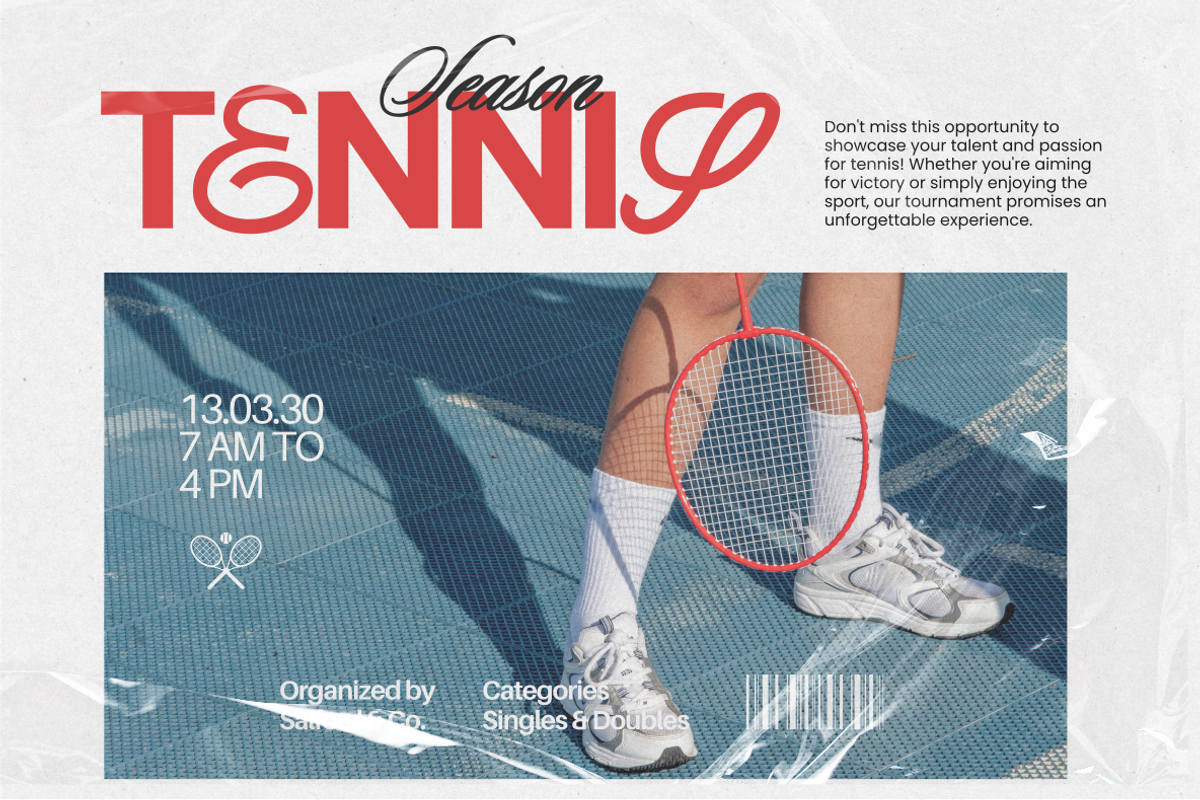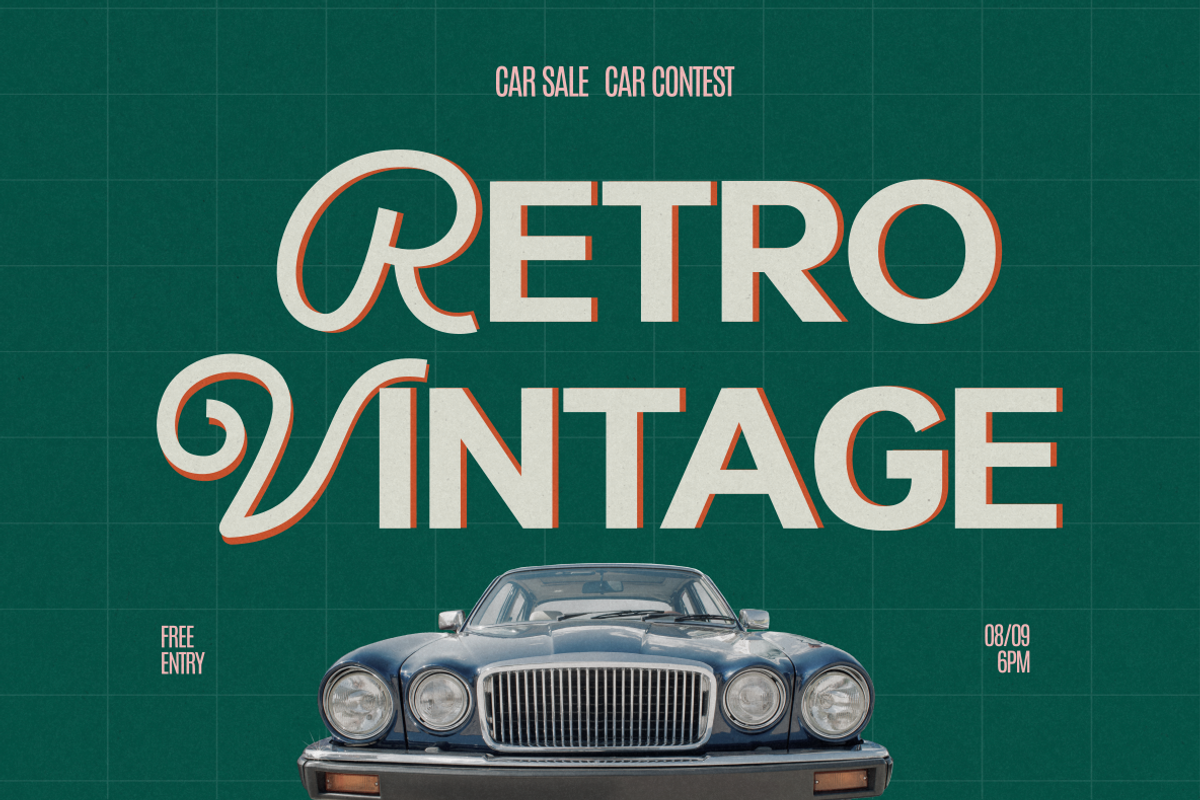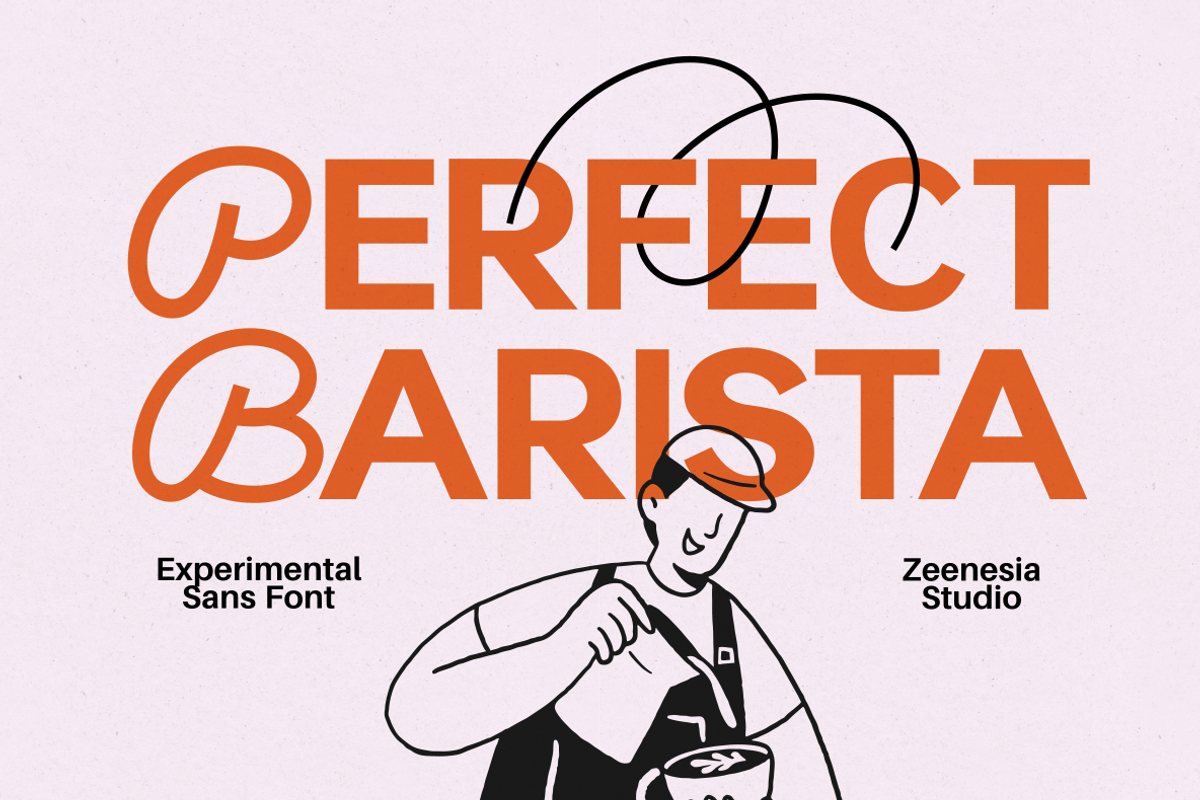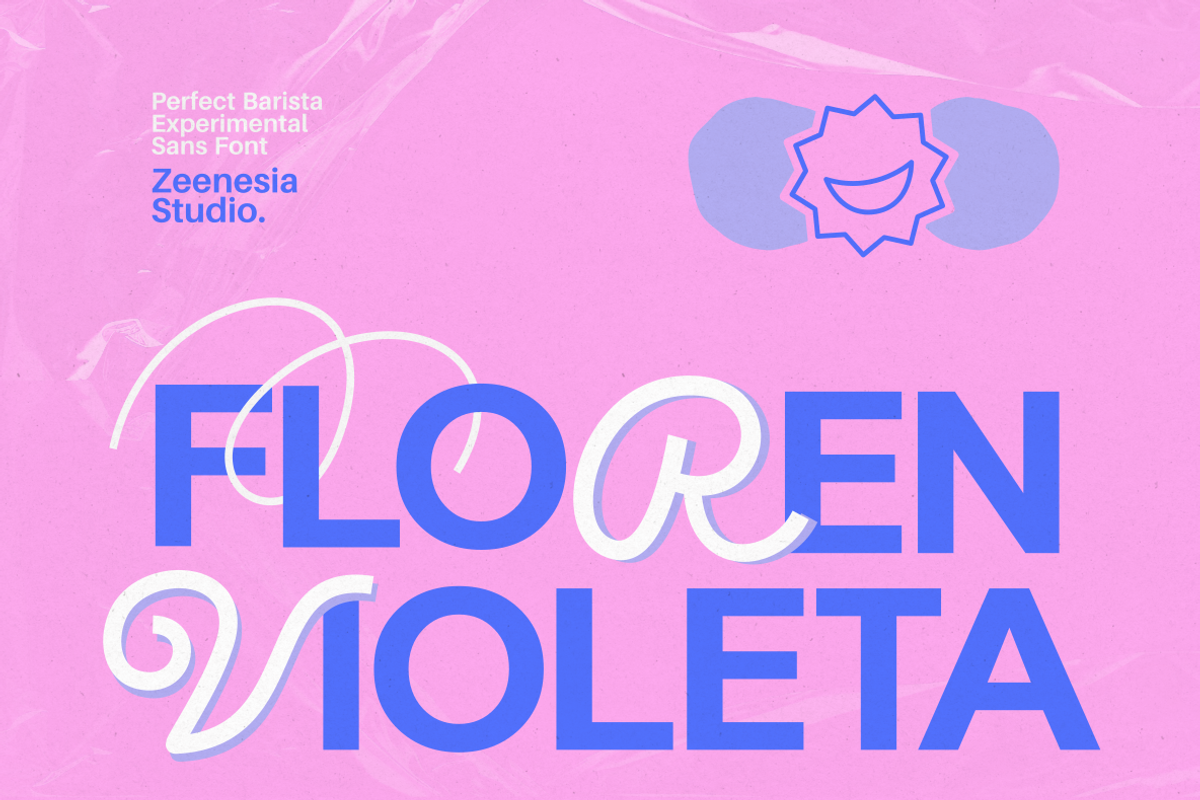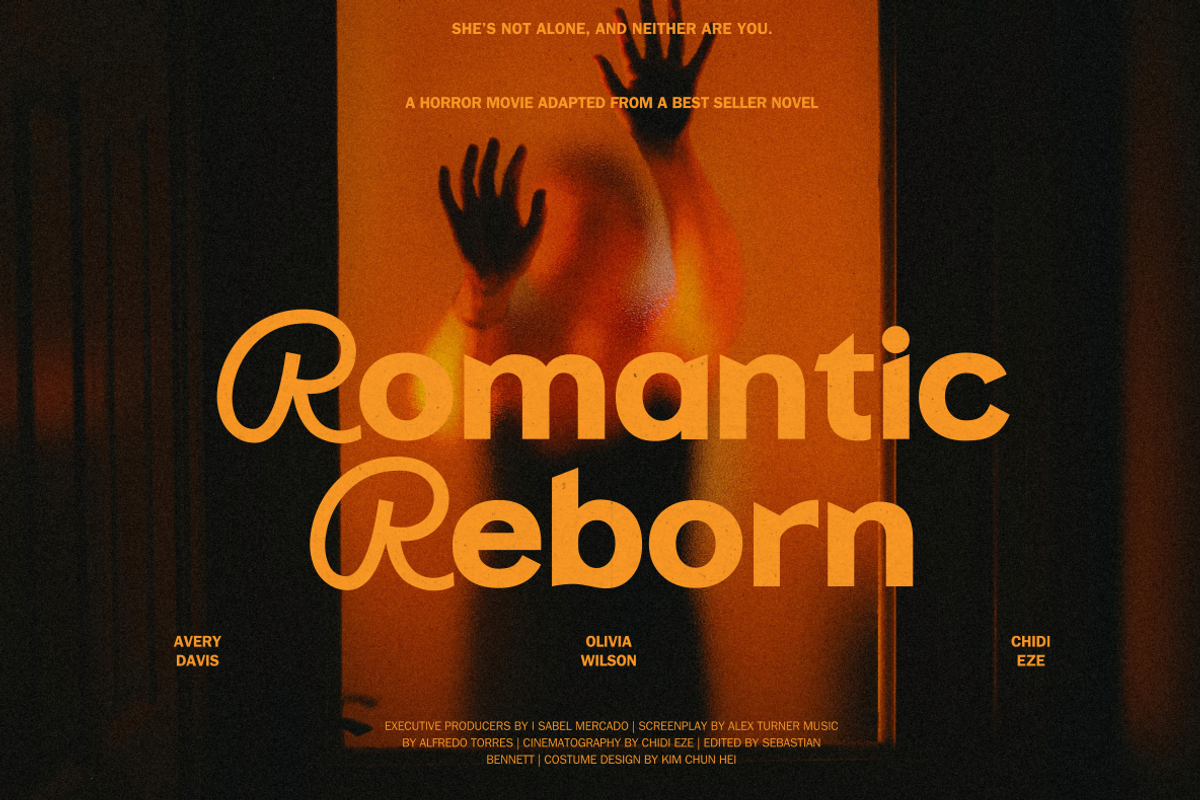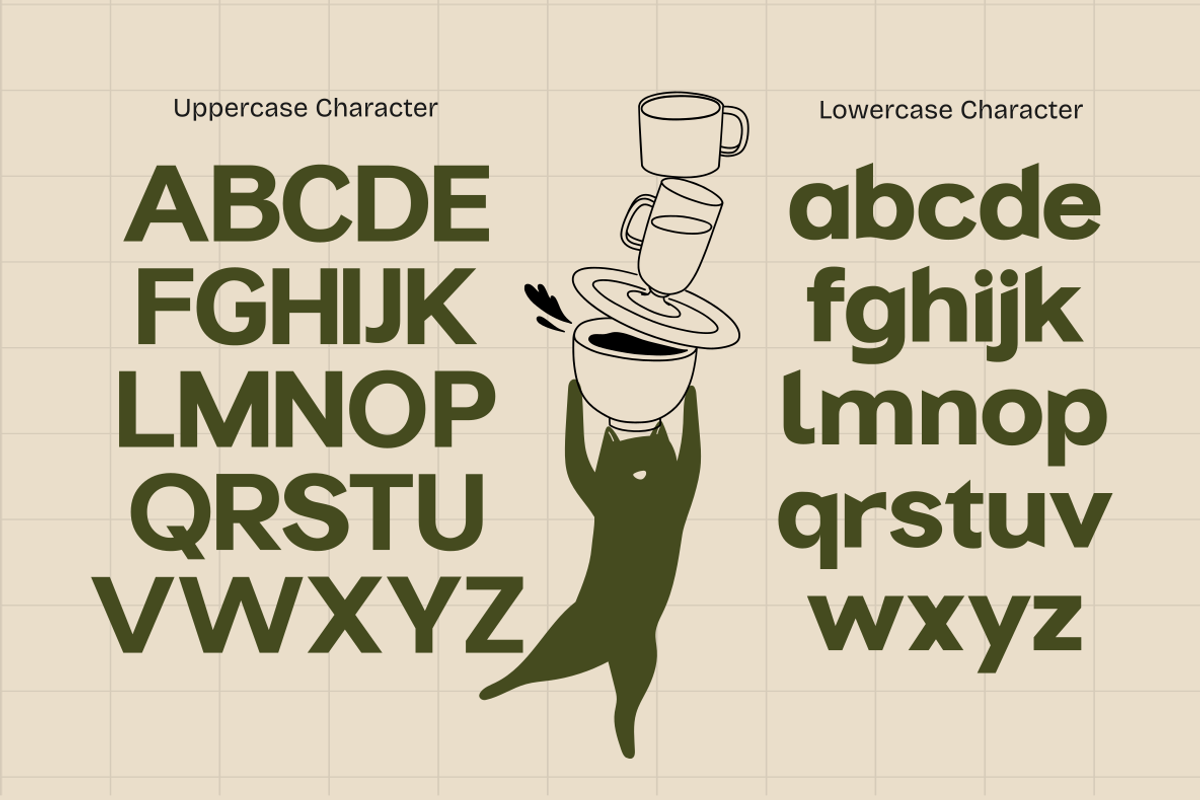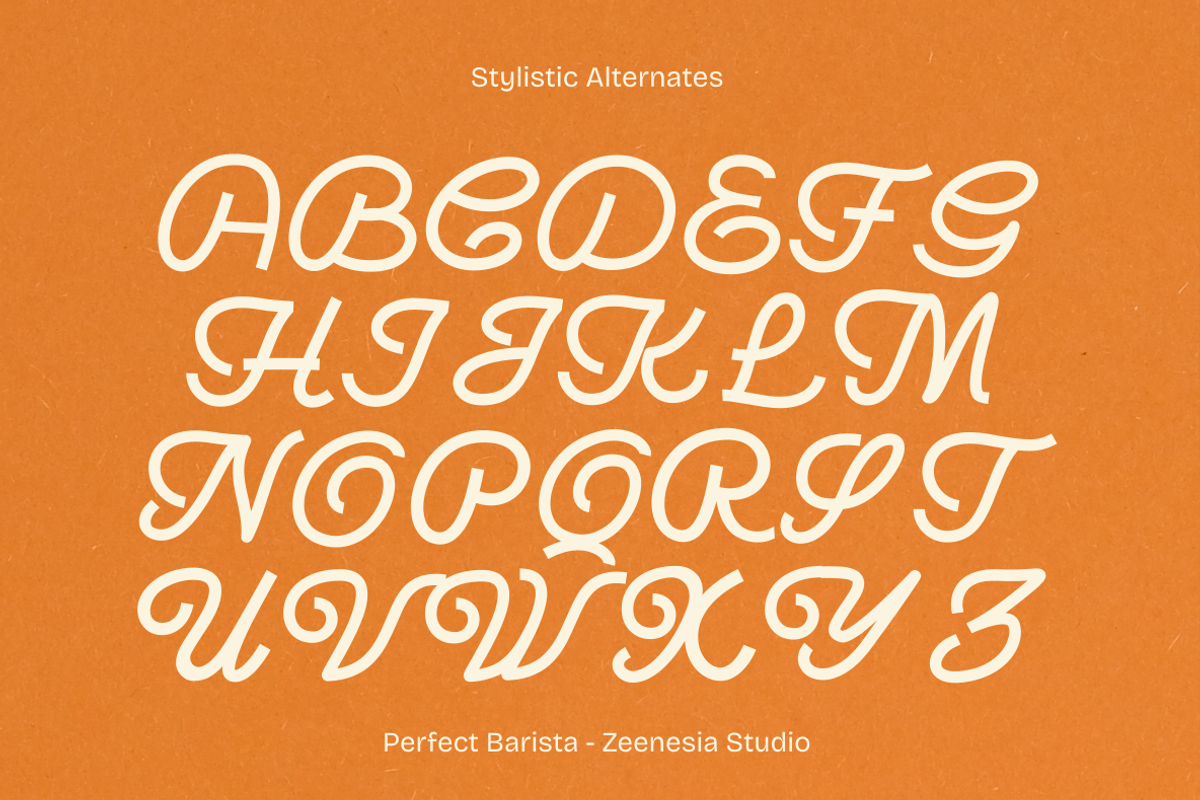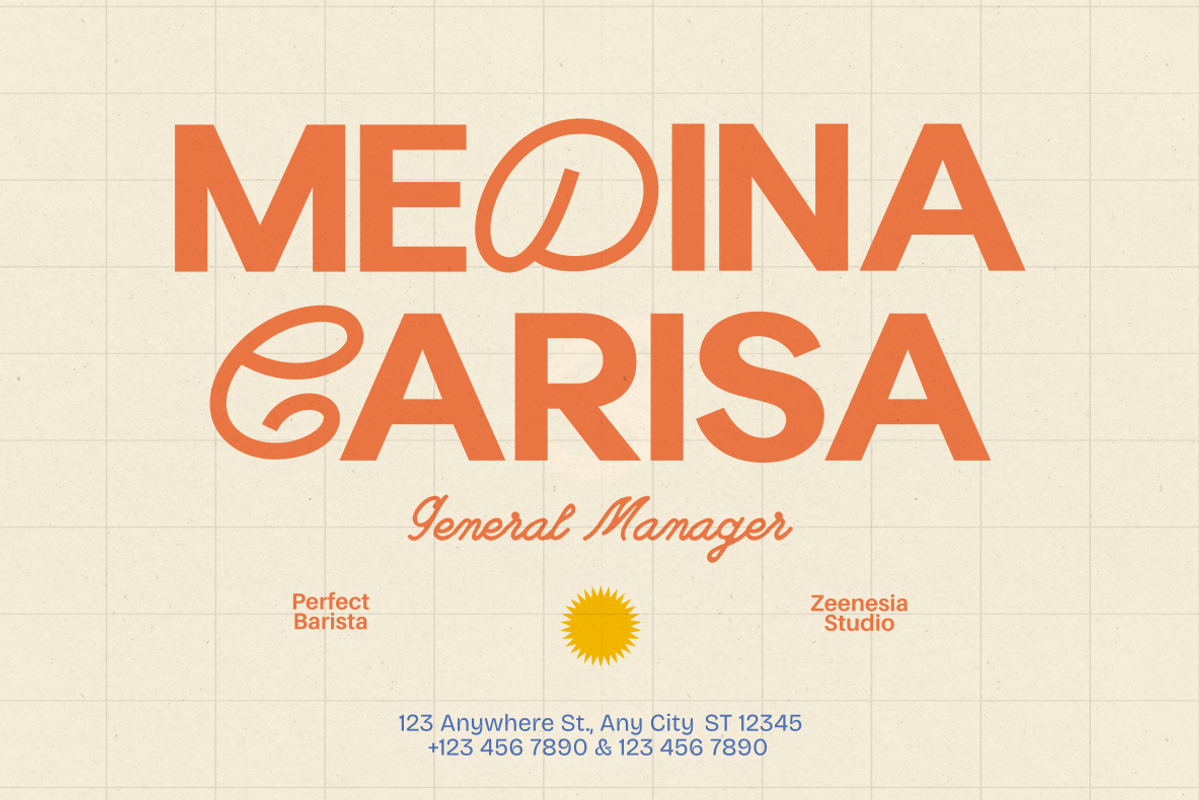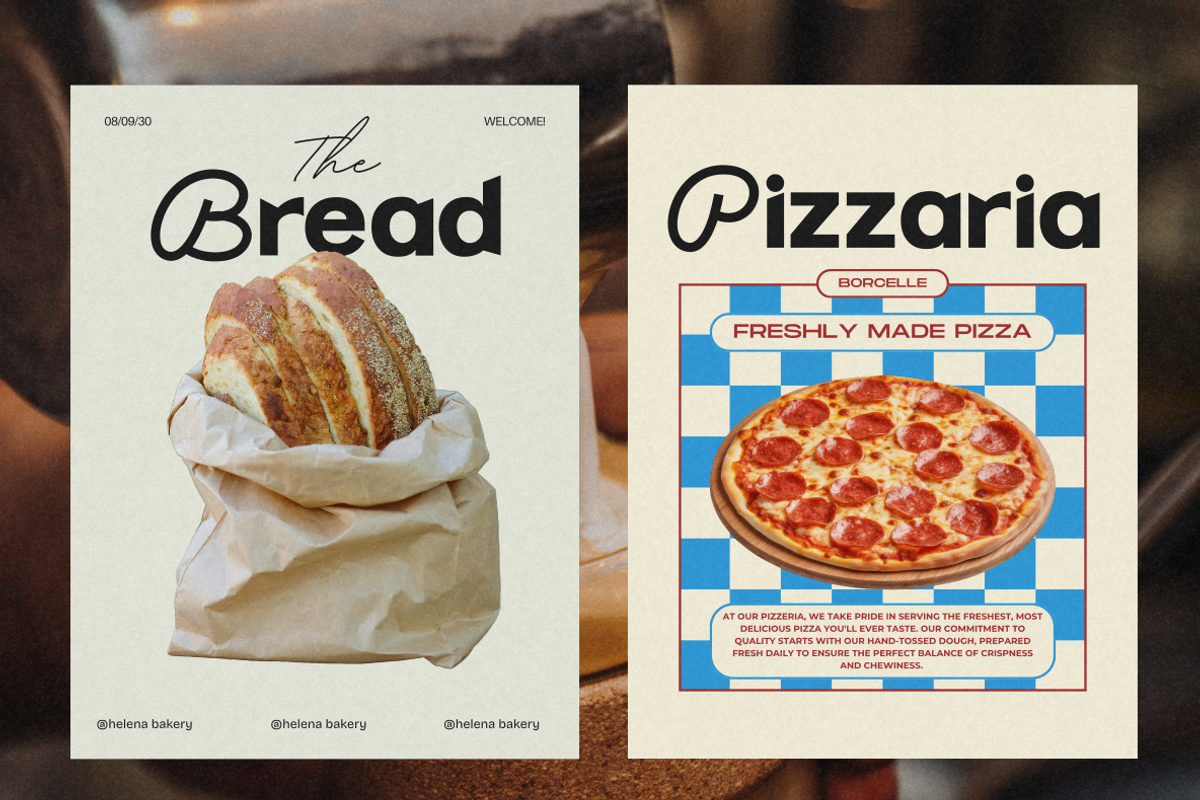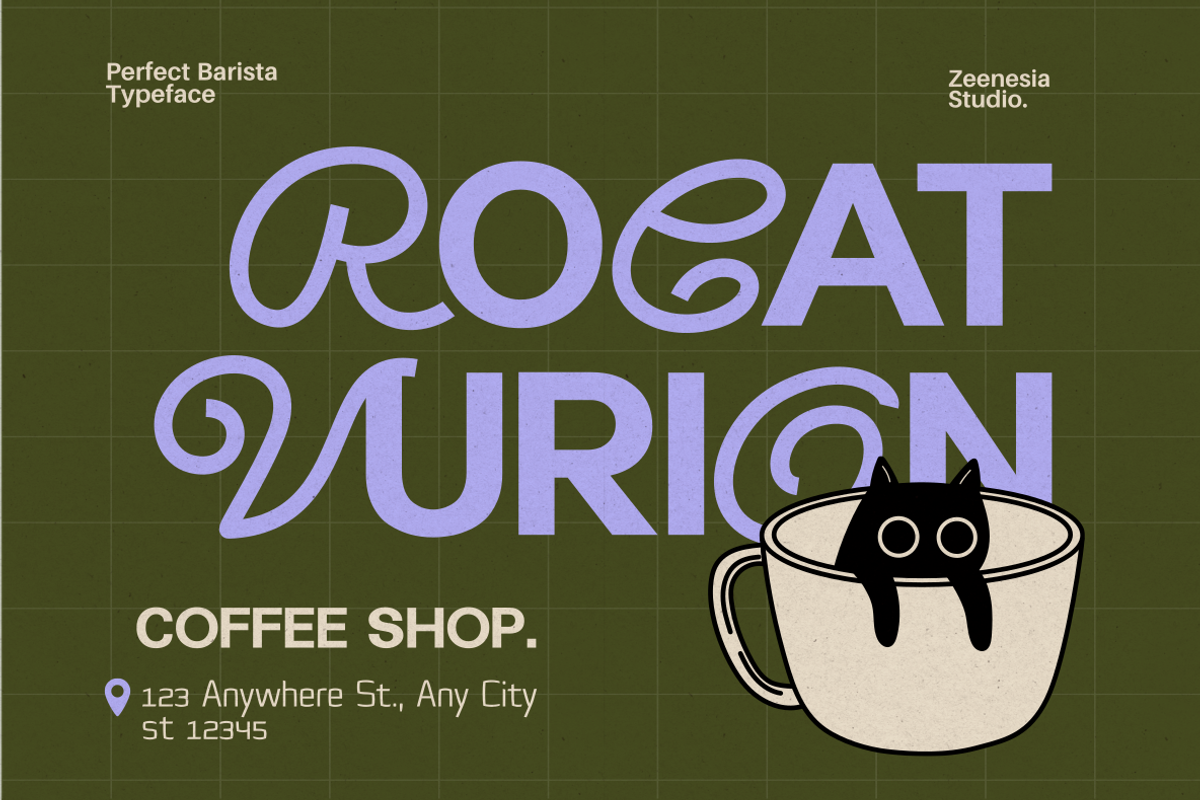
Perfect Barista
Perfect Barista is an experimental sans-serif font that combines bold geometric shapes with smooth, playful curves. Designed with a modern and creative touch, it offers a unique balance between structure and personality. Perfect for branding, coffee shop logos, posters, and packaging, this font brings a handcrafted charm that feels both warm and contemporary.